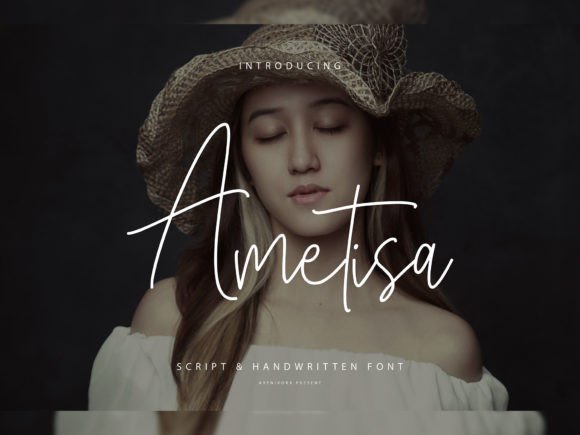
Immerse yourself in a world of sophistication with Ametisa, the epitome of elegance and luxury in the realm of script and handwritten fonts. This exquisite creation by artnivora.std stands apart, ready to elevate your creative endeavors to new heights.
With its graceful strokes and enchanting curves, Ametisa brings a touch of personalization and charm to any project it graces. Whether you're crafting captivating logo designs, creating stylish magazines, engaging social media content, designing brochures that leave a lasting impression, or exploring countless other creative avenues, Ametisa is your steadfast companion.
Step into a world where your imagination takes flight, where every letter dances with grace and poise. Ametisa's beauty lies in its versatility, effortlessly adapting to a myriad of styles and themes. From classic and timeless to modern and edgy, Ametisa becomes an extension of your creative vision, transforming your words into captivating works of art.
Discover the power of expression with Ametisa. Unleash your inner artist and let your creativity flow freely. This font is a treasure trove of endless possibilities, waiting to be unearthed and molded into something truly extraordinary.
Embrace the allure of Ametisa, let its elegance seep into your designs, and watch as your projects blossom into masterpieces that capture hearts and leave an indelible mark on the world. Each stroke, each curve, each letter is a testament to the transformative power of art and creativity.